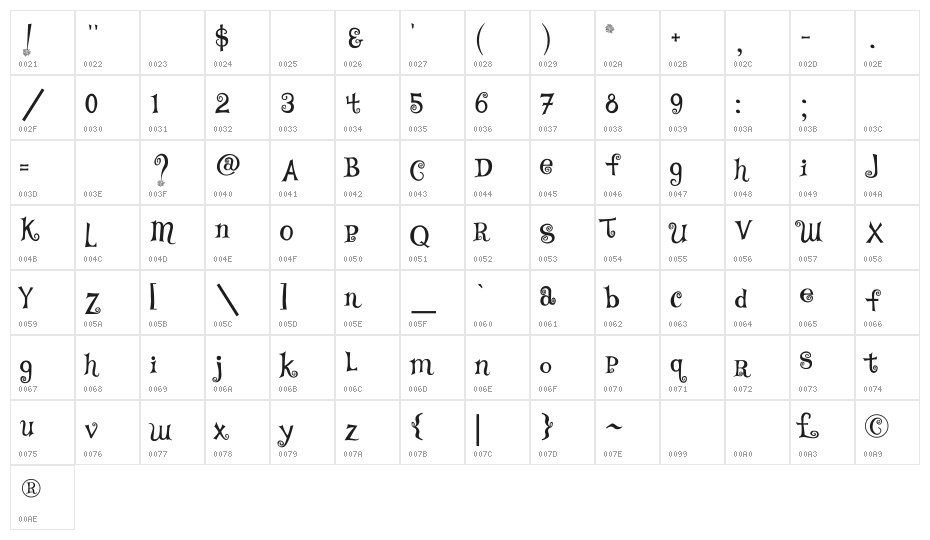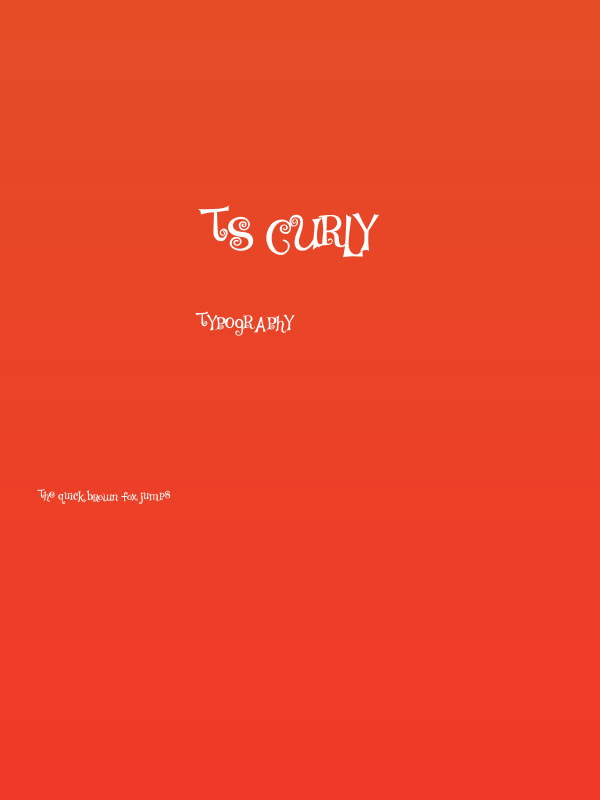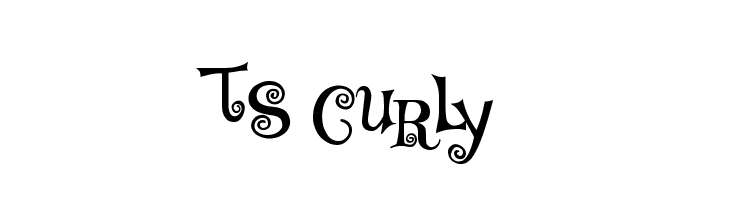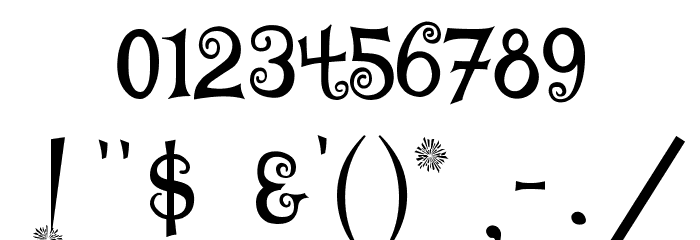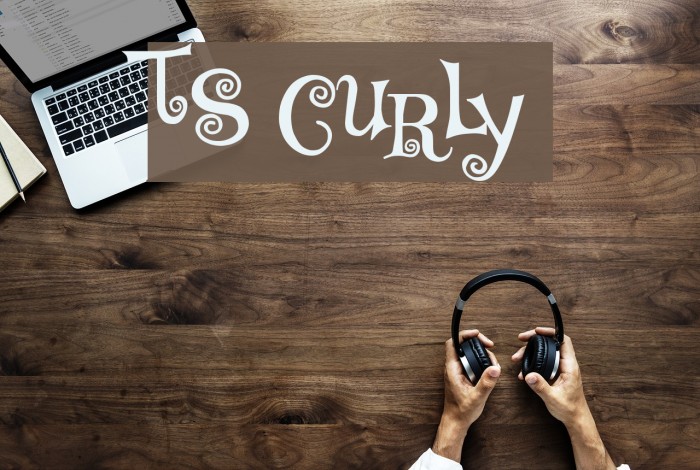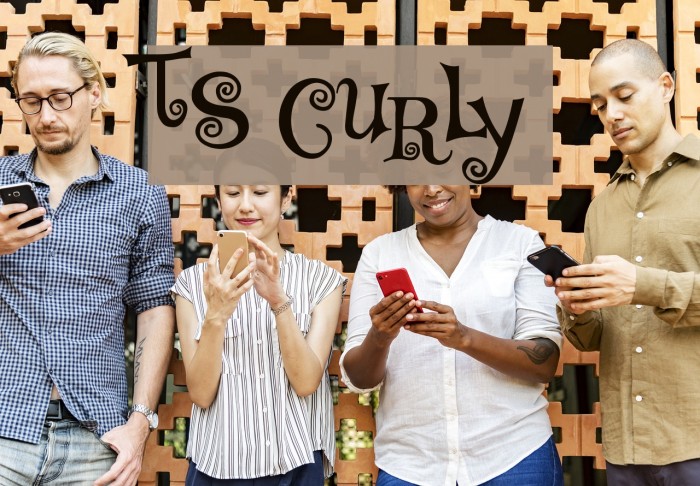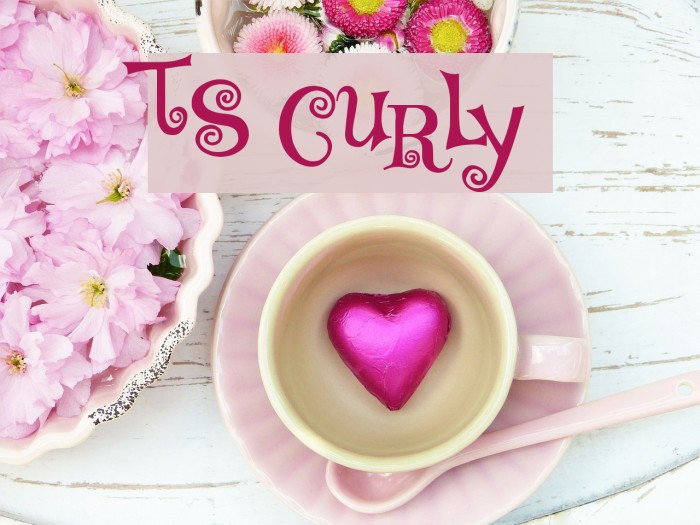
TS Curly Font
This whimsical and playful font features a unique curly design that adds a touch of fun and creativity to any text. The characters are bold and have an artistic flair, with swirling elements that give them a dynamic and lively appearance. The uppercase and lowercase letters maintain a consistent style, with each character exhibiting a distinct personality through its curls and twists. The numbers and special characters are equally expressive, making this font suitable for projects that require a touch of whimsy and imagination.